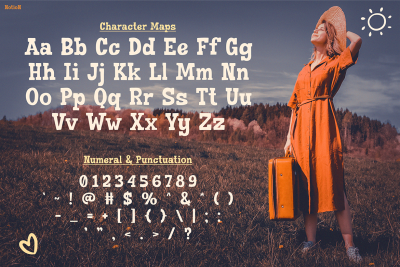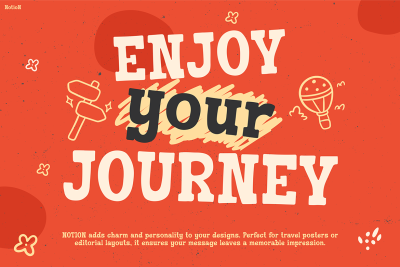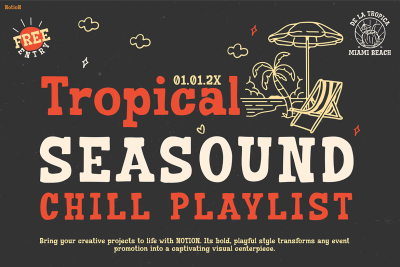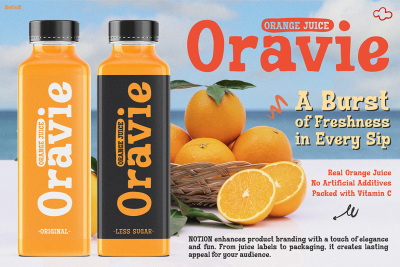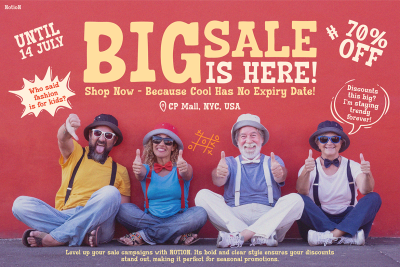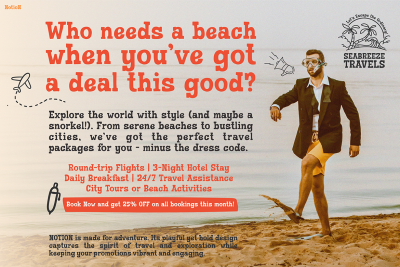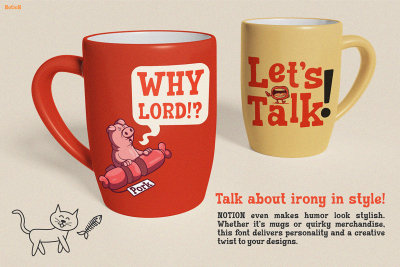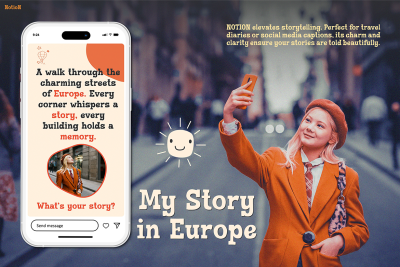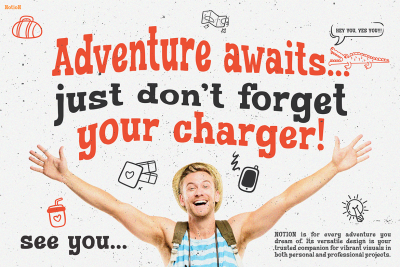
The Funny Font NOTION is a playful typeface that brings joy and energy to every project. Its bold, rounded letters convey a sense of fun and spontaneity, making it ideal for lighthearted and creative designs. Moreover, the bright orange tone and whimsical details amplify its cheerful personality, ensuring it stands out in any context. As a result, this font is perfect for projects that aim to celebrate freedom, positivity, and creativity.
In addition, the NOTION font is highly versatile and works well with various design styles. It pairs seamlessly with vibrant colors, adding warmth and energy, or with minimalist backdrops, creating a unique visual contrast. Furthermore, its clean yet dynamic structure ensures your message remains impactful and easy to read. The friendly aesthetic also makes it suitable for a wide range of applications, from professional branding to personal creative projects.
Another notable feature of the NOTION font is its ability to evoke nostalgia while staying fresh and modern. Its playful curves and bold design strike a balance between vintage charm and contemporary appeal. This combination ensures that it resonates with audiences across different age groups and creative fields.
Funny Font NOTIONย Ideal For
The Funny Font NOTION is perfect for individuals and businesses looking to convey fun, creativity, and approachability. Specifically, it appeals to:
- Children’s Book Designers: Ideal for book covers, titles, and headings in children’s literature. Additionally, it adds a playful touch that engages young readers and enhances the storytelling experience.
- Event Planners and Creatives: Great for invitations, posters, or banners for parties, festivals, and casual events. For example, it works wonderfully for birthdays, picnics, or outdoor fairs.
- Brands and Entrepreneurs: Perfect for logos, packaging, or advertisements in food, entertainment, or lifestyle industries. As such, it helps create a friendly and vibrant brand identity that appeals to customers.
- Teachers and Educators: Useful for worksheets, posters, or bulletin boards to engage students. Moreover, it adds a sense of fun to learning materials, making education more interactive.
- Social Media Creators: Perfect for crafting eye-catching posts, stories, or banners with a playful tone. Consequently, it helps your content stand out in a crowded digital landscape.
- DIY and Craft Enthusiasts: Excellent for designing handmade cards, scrapbook titles, or personalized gifts. Its approachable style adds a unique and heartfelt touch to creative projects.
In summary, the Funny Font NOTION adds energy, happiness, and creativity to designs. Therefore, itโs a great choice for projects that aim to inspire, engage, and delight audiences.